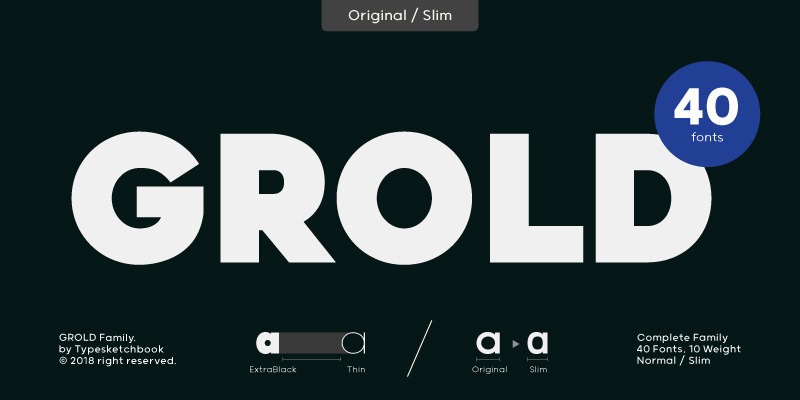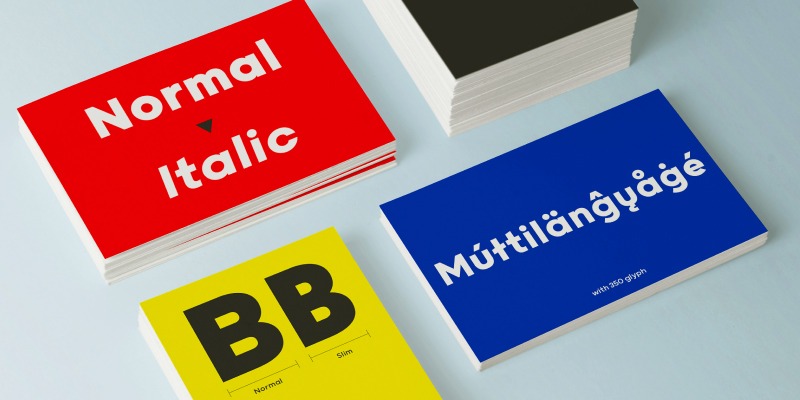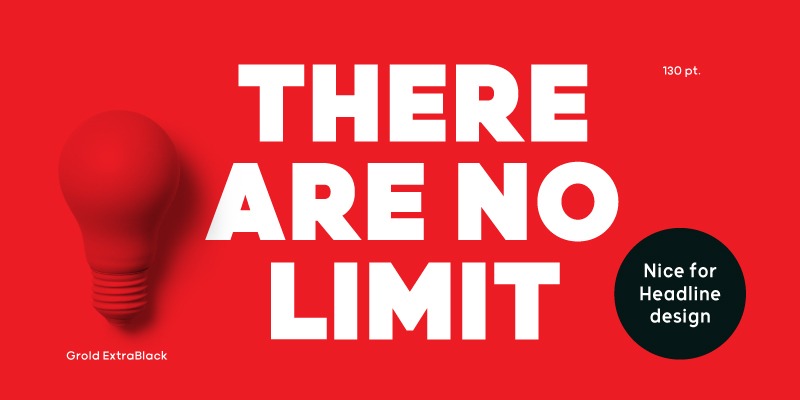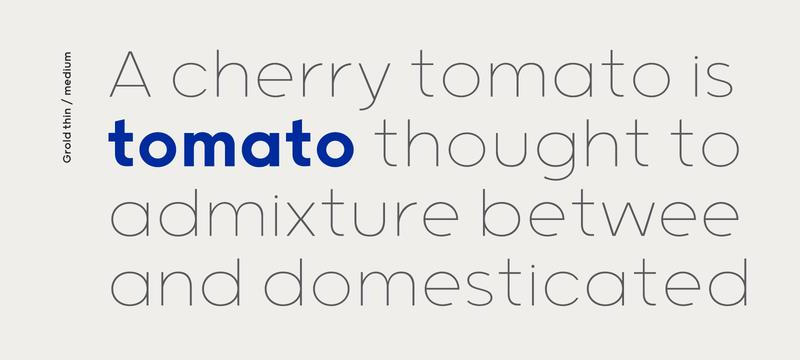
Grold Font Family: 40 Post-Geometric OTF Fonts With 10 Weights & Matching Italics
This deal delivers a professional font family package with the complete entire Grold font family, a post-geometric typeface with 40 fonts, with a smooth sans-serif design and enough variations to be a highly versatile font that you can apply it on all kinds of projects, ranging from large display compositions to titles and headlines, as well as long paragraphs and body-copy, Grold will have you covered on any typographic project you're working on
This font features multilanguage support for Western Europe, Central/Eastern Europe, Baltic, Turkish & Romanian, 360 glyphs per-font, with files delivered in OTF format with optional ligatures - Grold includes 10 different font weights, ranging from thin fonts to heavy extra blacks, and it also includes matching true italics for every font weight, making Grold a truly versatile typeface for using on all kinds of typographical projects
Grold also features 2 versions - the regular font design with all of its weights as well as the Grold slim versions that also includes it's weights, with different line widths and character designs, to give your compositions better variability, and provide further design choices
This font performs greatly on both large display purposes and titles as well as small and longer paragraphs, and will add a stylish design to your printables - it'll be a great choice for business cards, posters, brand identity projects, and even websites anjd digital designs